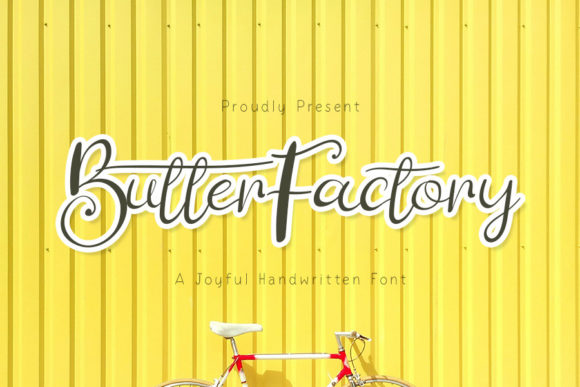
The Butter Factory Font: A Lovely and Delicate Script Font for Elegant Designs
Have you ever been in the middle of a design project, and suddenly, you just can’t seem to find the right font? I recall a particularly frustrating experience while working on a wedding invitation design. My client wanted something elegant and classy, but everything I tried seemed either too boring or too over-the-top. That’s when I stumbled upon the Butter Factory font, and it completely transformed my design.
A Personal Review of Butter Factory Font
I’m excited to share my honest review of the Butter Factory font. Here’s what I love about it:
• ✨ Elegant and Classy: The Butter Factory font exudes sophistication and refinement, making it perfect for designs that require a touch of luxury.
• ✅ Delicate and Lovely: The font’s delicate strokes and beautiful curves add a touch of whimsy and romance to any design.
• 🌈 Versatile: The font comes in various weights and styles, making it suitable for a wide range of design projects, from wedding invitations to branding and packaging.
While the Butter Factory font is amazing, it’s not without its quirks:
• 🤔 Limited use of bold weights: While the font does come in bold weights, they may not be suitable for all design projects. However, the regular weights work beautifully for most designs.
• ⚠️ Glyph limitations: Some users have reported that the font could benefit from more glyphs, particularly for non-English languages.
The Story Behind Butter Factory Font
The Butter Factory font was designed by a team of typographers who wanted to create a font that would evoke the feeling of luxury and sophistication. Inspired by classic script fonts, they crafted a font that would be both elegant and refined. The font’s delicate strokes and beautiful curves make it perfect for designs that require a touch of whimsy and romance.
What is the Butter Factory font best used for? The Butter Factory font is best used for designs that require a touch of elegance and sophistication, such as wedding invitations, branding, and packaging.
Is the Butter Factory font suitable for body text? While the Butter Factory font is beautiful, it’s not recommended for body text due to its delicate nature. It’s best used for headlines and titles.
Is the Butter Factory font available in multiple languages? The Butter Factory font may not have glyphs for all languages. Be sure to check the font’s character set before using it for a project.